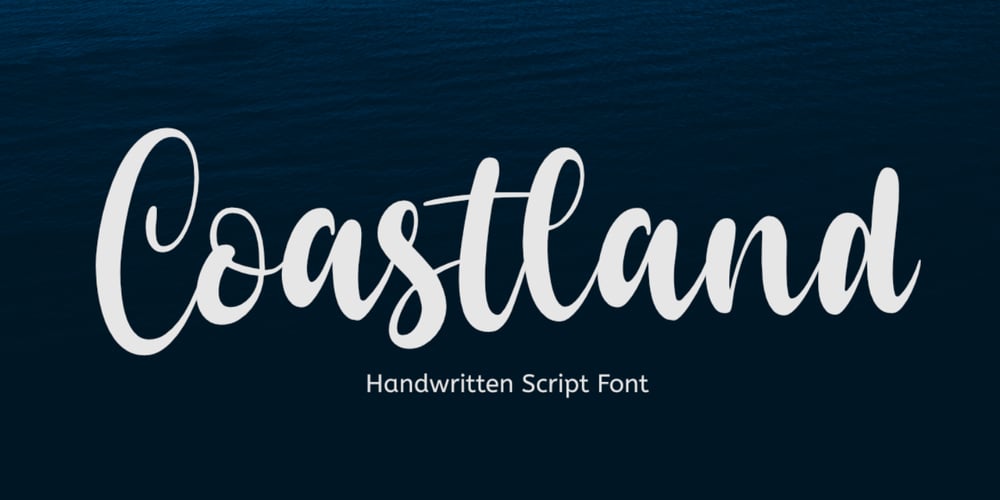
Coastland
Coastland font
Coastland Font Family was designed by Aldy Sidik and published by Epiclinez. Coastland contains 1 styles and family package options. Coastland is a pretty handwritten script font. It’s simple and friendly style makes this font incredibly versatile, fitting a wide variety of creative ideas.